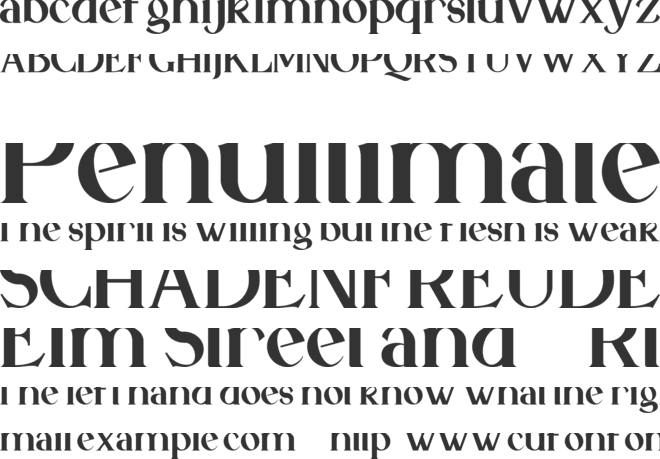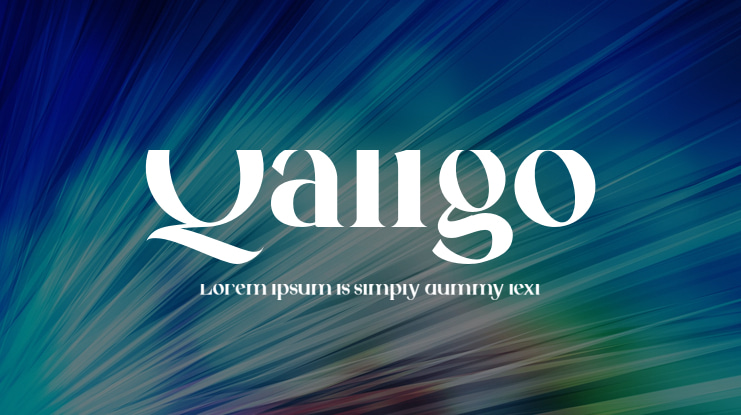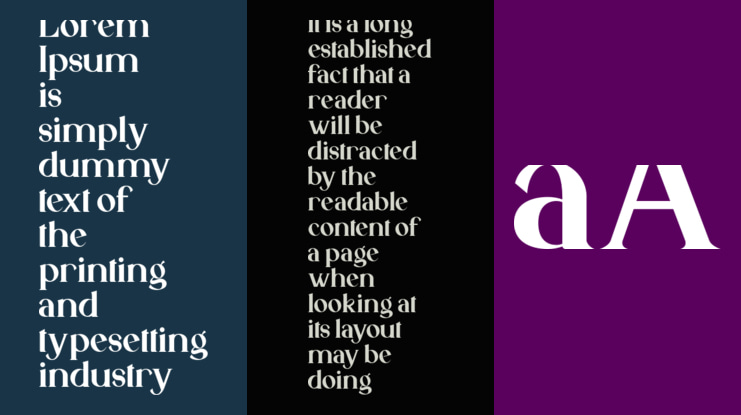
Qaligo Font
Introducing Qaligo Serif Font - A Brand New Serif Font with Luxury Shape, More Opentype Feature, more neat curves
Qaligo Serif Font Inspired by Modern and Luxury Typography. Qaligo Serif Font is a very versatile font. you can use this font to various design. Basics can improve more than 250 alternates character where can collaborate with premade logos.
Qaligo Serif Font support 24 Language : Afrikaans Albanian Catalan Croatian Czech Danish Dutch English Estonian Finnish French Hungarian Italian Lithuanian Maltese Norwegian Polish Portugese Slovak Slovenian Spanisch Swedish Turkish Zulu